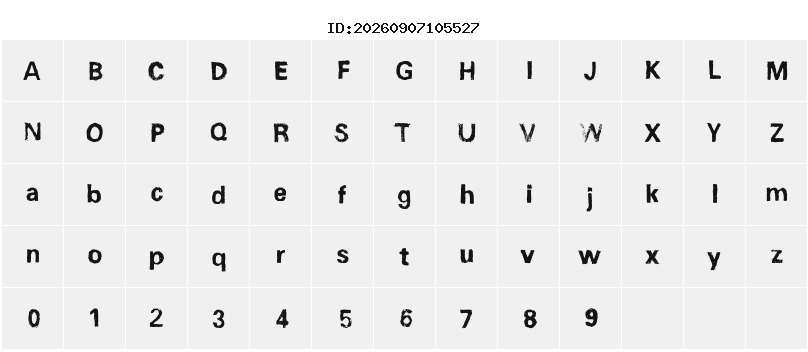
Unisketch_limited Preview
• Font Name: Unisketch_limited
• Full Font Name: Unisketch Bold
• Designer: Ursula Hitz
About Unisketch_limited.ttf
Unisketch_limited.ttf is a modern, elegant sans-serif font designed for ultimate readability and visual harmony. Perfect for branding, headlines, web design, and print materials.